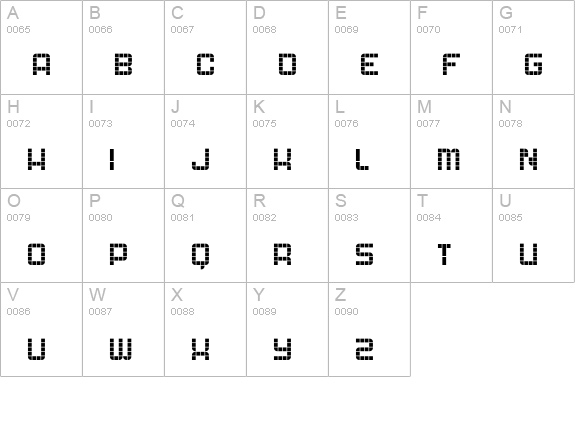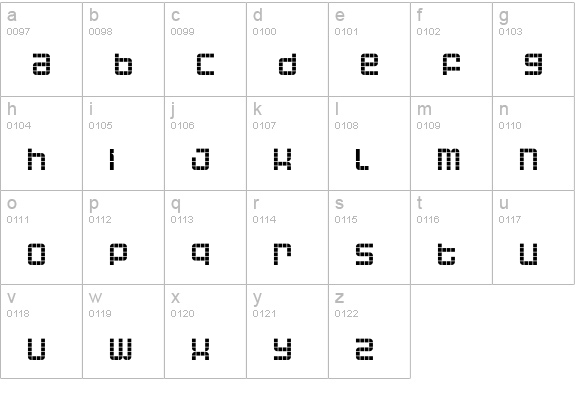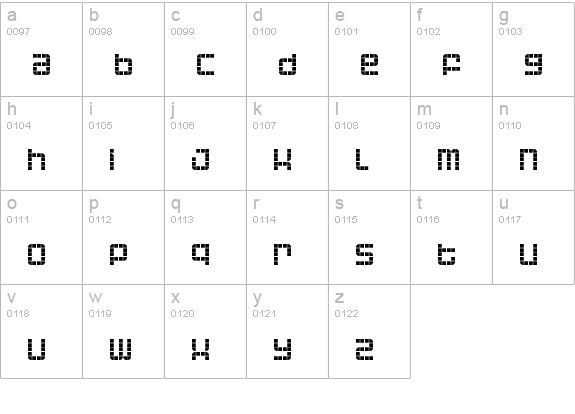
Astronaut Font Details
Astronaut font is a futuristic and sleek typeface that embodies the spirit of space exploration and discovery. Its clean lines and geometric shapes give it a modern and sophisticated look, perfect for conveying a sense of adventure and innovation in your designs. Whether you're working on a sci-fi project, a technology brand, or a futuristic event promotion, Astronaut font will add a touch of cosmic elegance to your work. And the best part? Astronaut font is completely free to download at FontsMarket.com! Now you can easily access this stunning typeface to elevate your projects without breaking the bank. Don't miss out on the opportunity to add a touch of interstellar charm to your designs with Astronaut font - get it now and blast off to new creative heights!